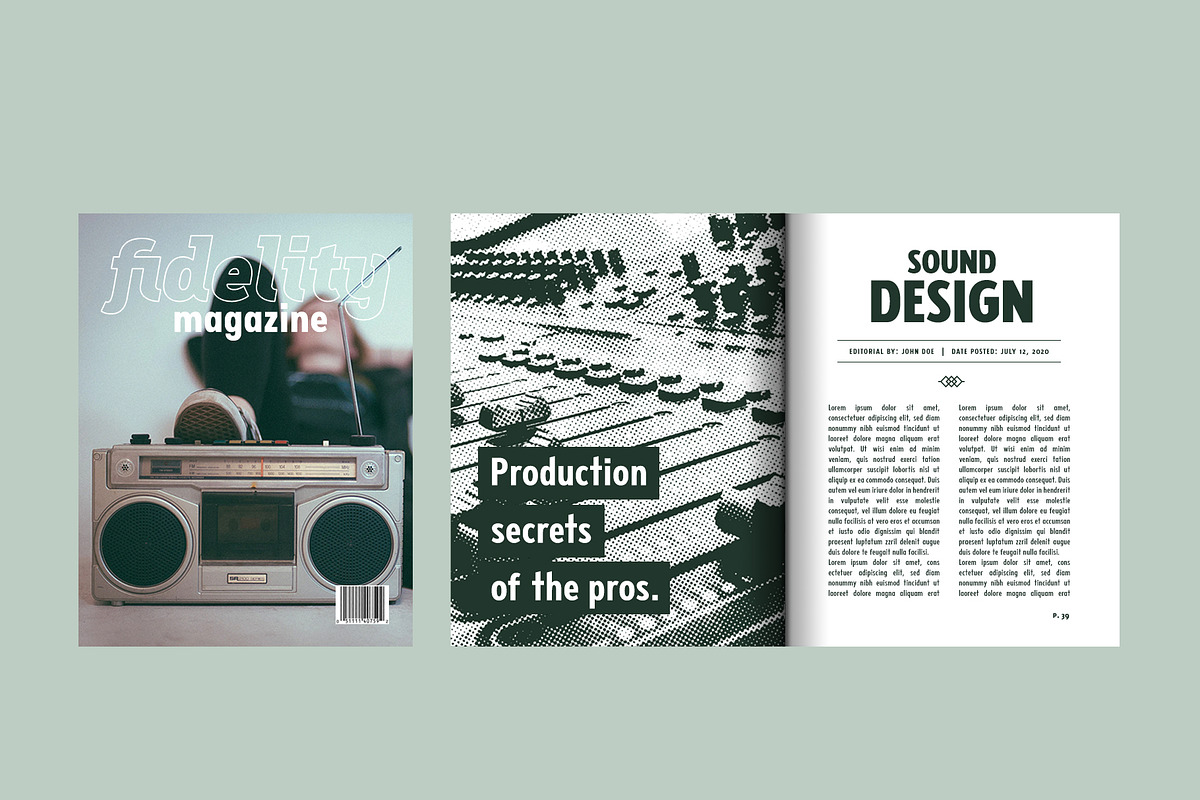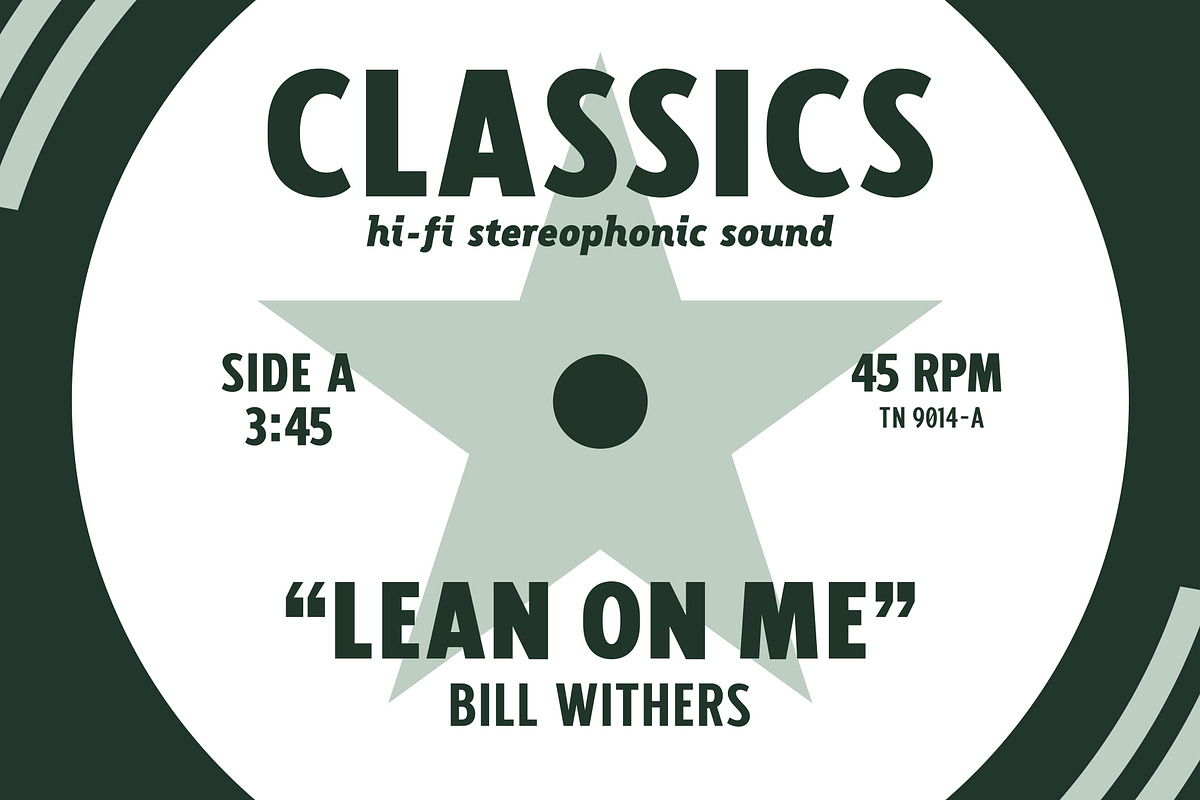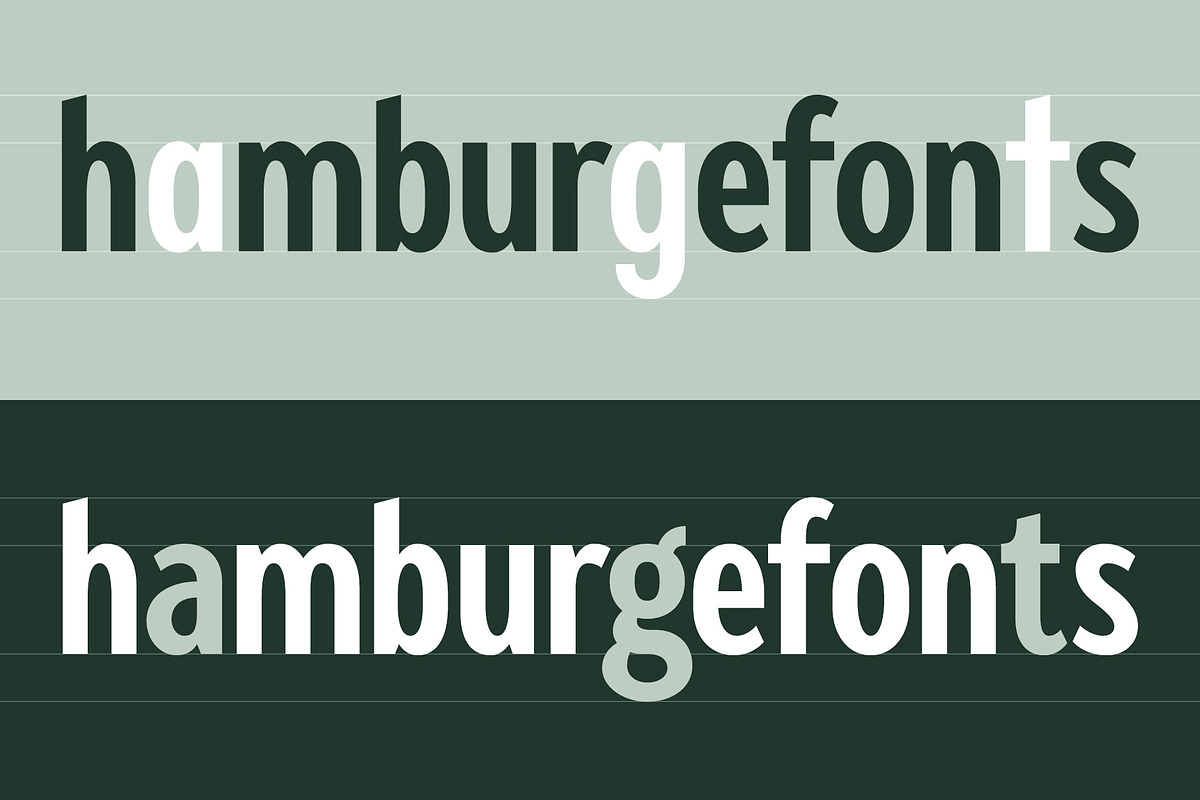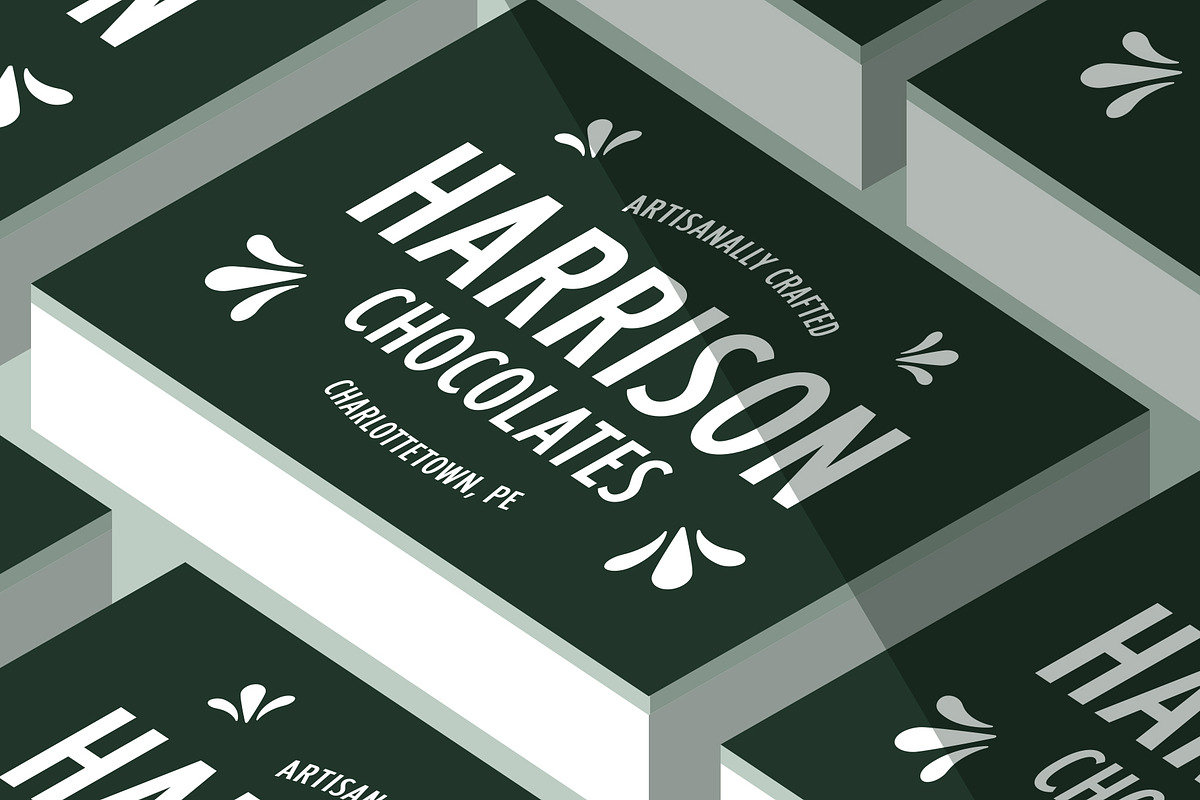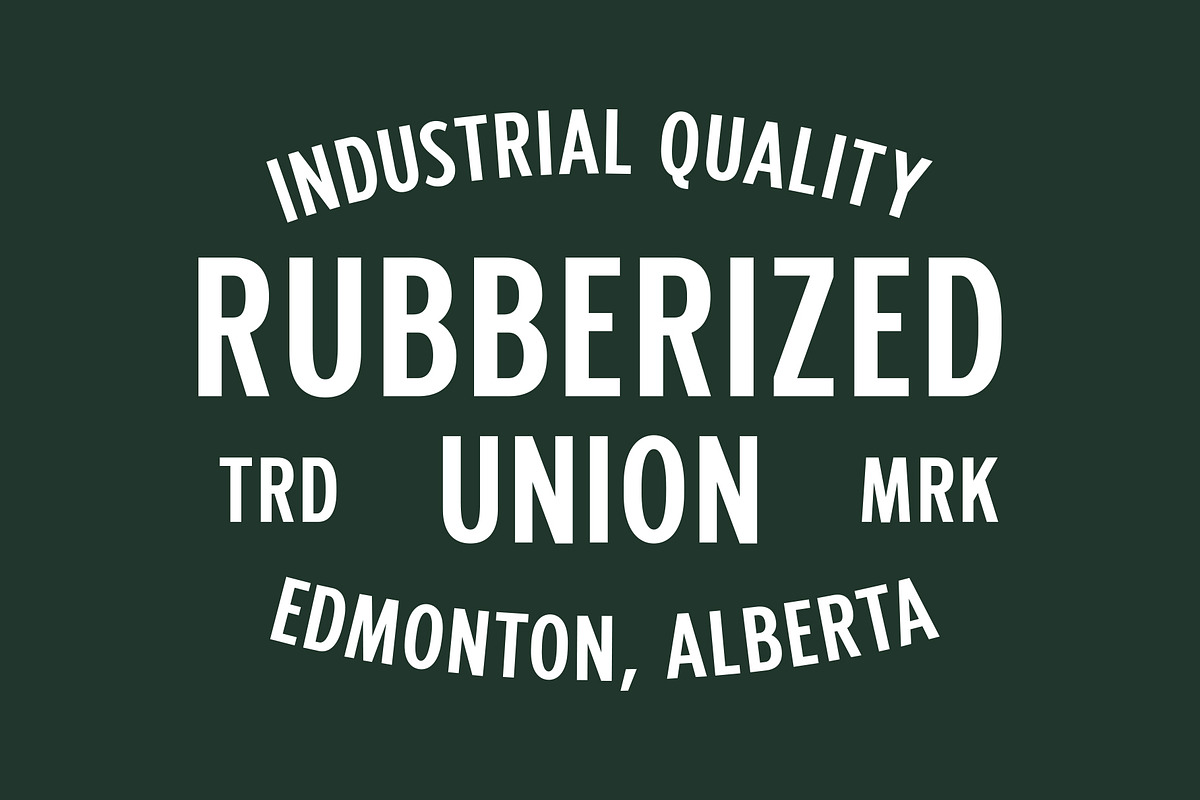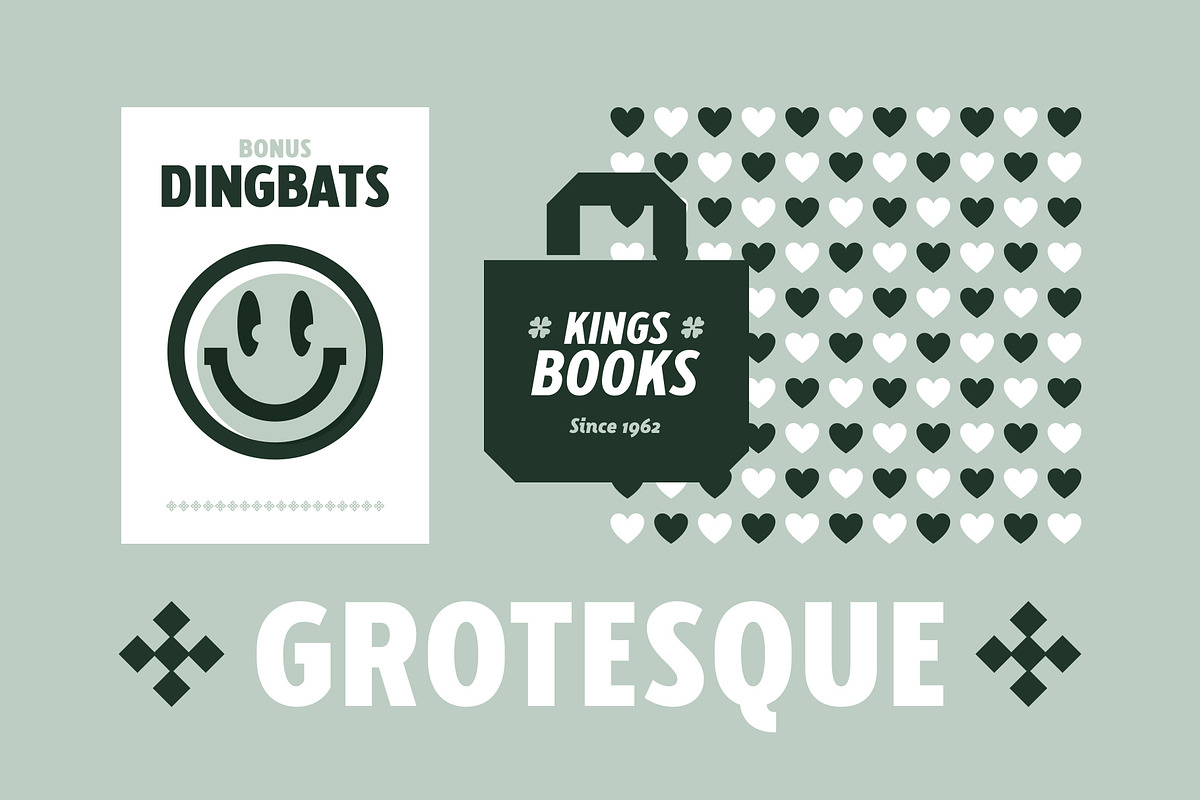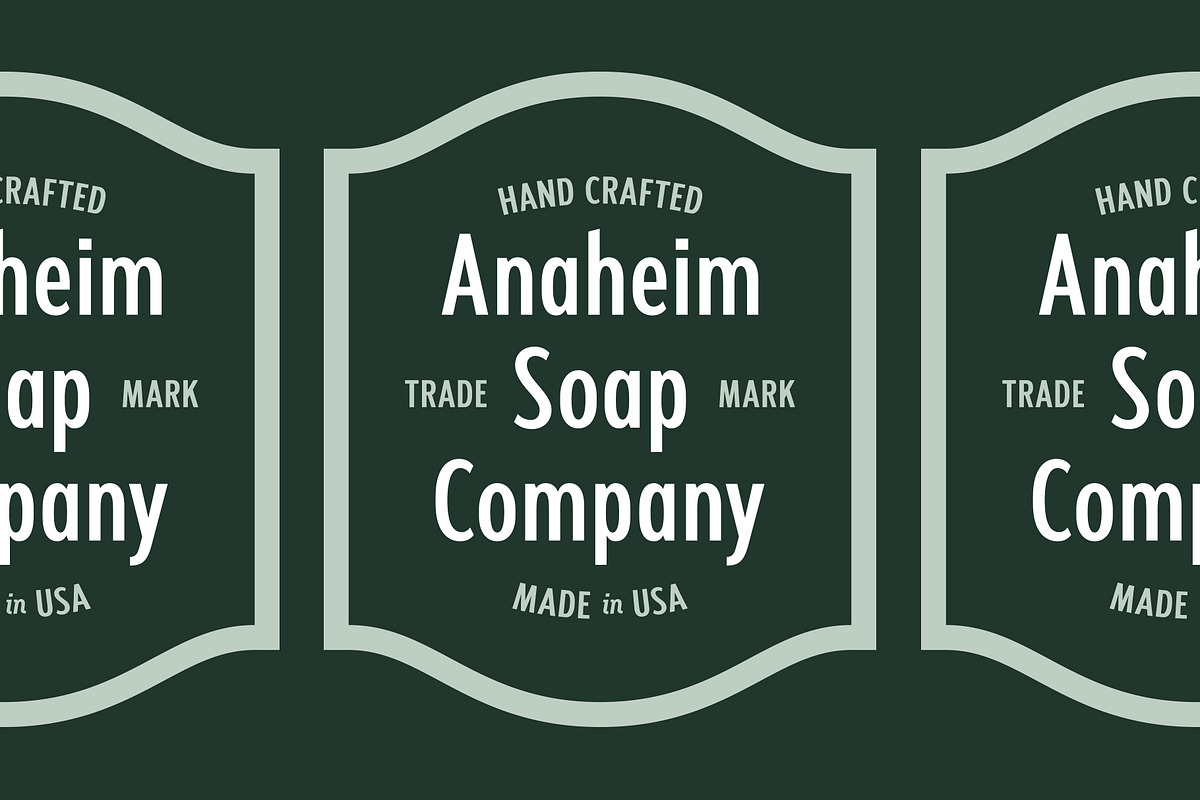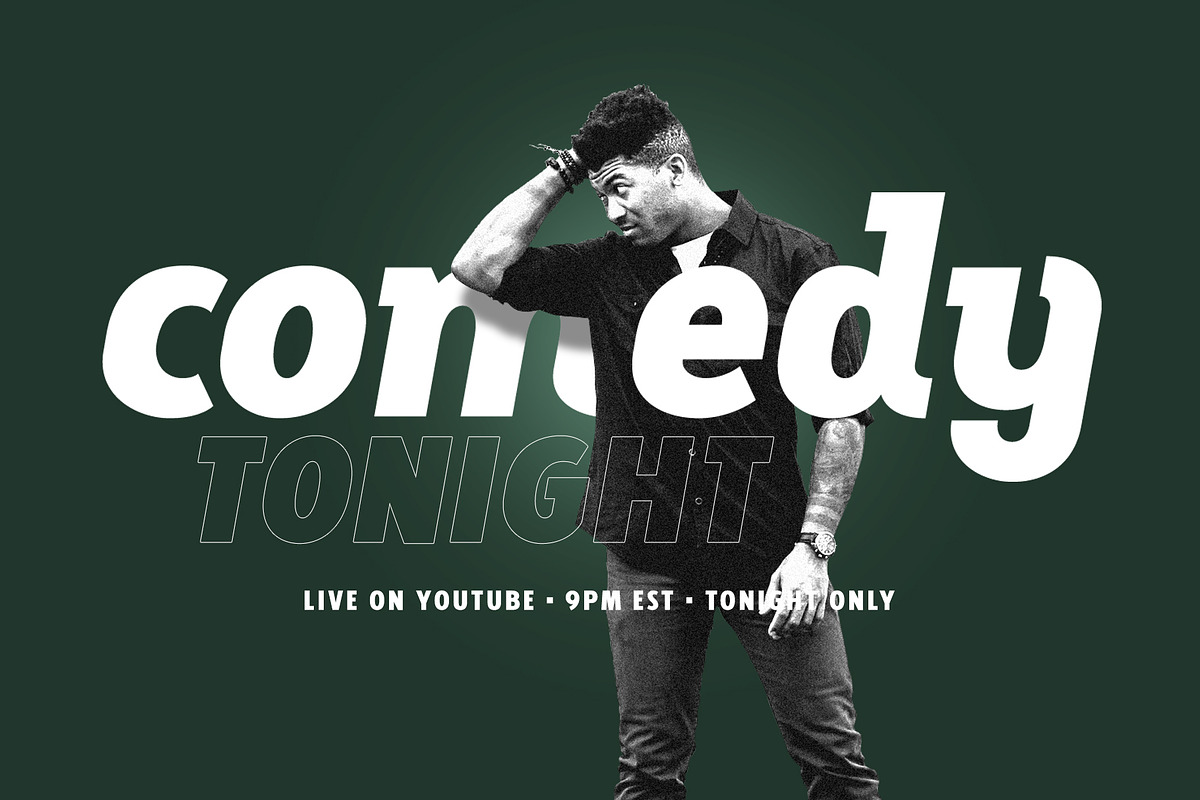
Fellbaum Grotesk Full
Fellbaum Grotesk is a condensed typeface with both grotesque and cursive/humanist attributes.
Fellbaum Grotesk Regular presents a clean, “grotesk” exterior, while the Italic version features faint slab-style flourishes. These characteristics, combined with a subtle stroke contrast and slightly extended x-height make for a distinct, and artisanal appearance.
The family was inspired by the condensed & sterile, yet quirky, sans serifs found on a lot of vintage apothecary labels & municipal street signage. Both styles in the family are modest enough to work as secondary fonts, but also sport enough character to work as a primary sans face for wordmarks, logos, headers, etc.
Fellbaum Grotesk Features:
• Dingbats